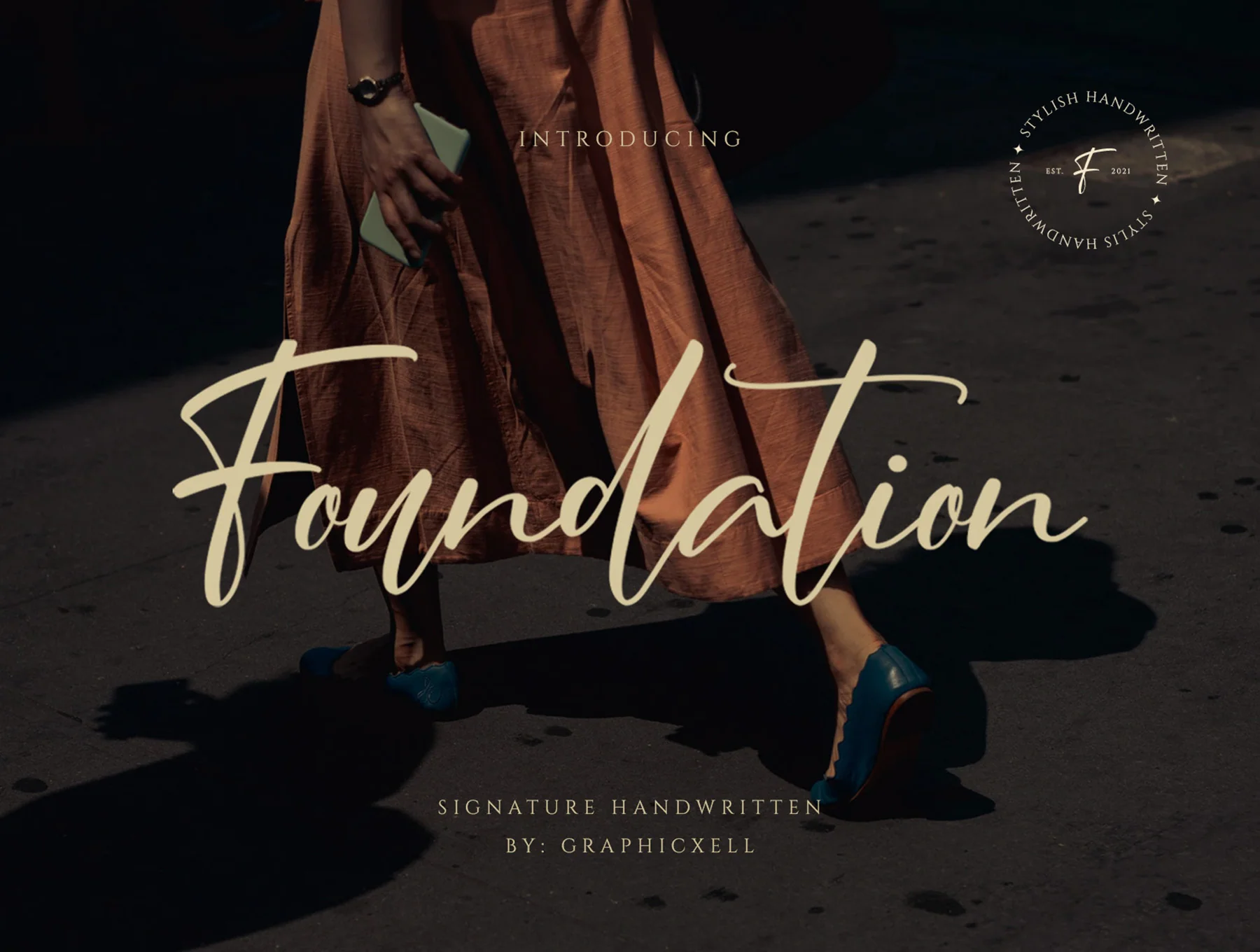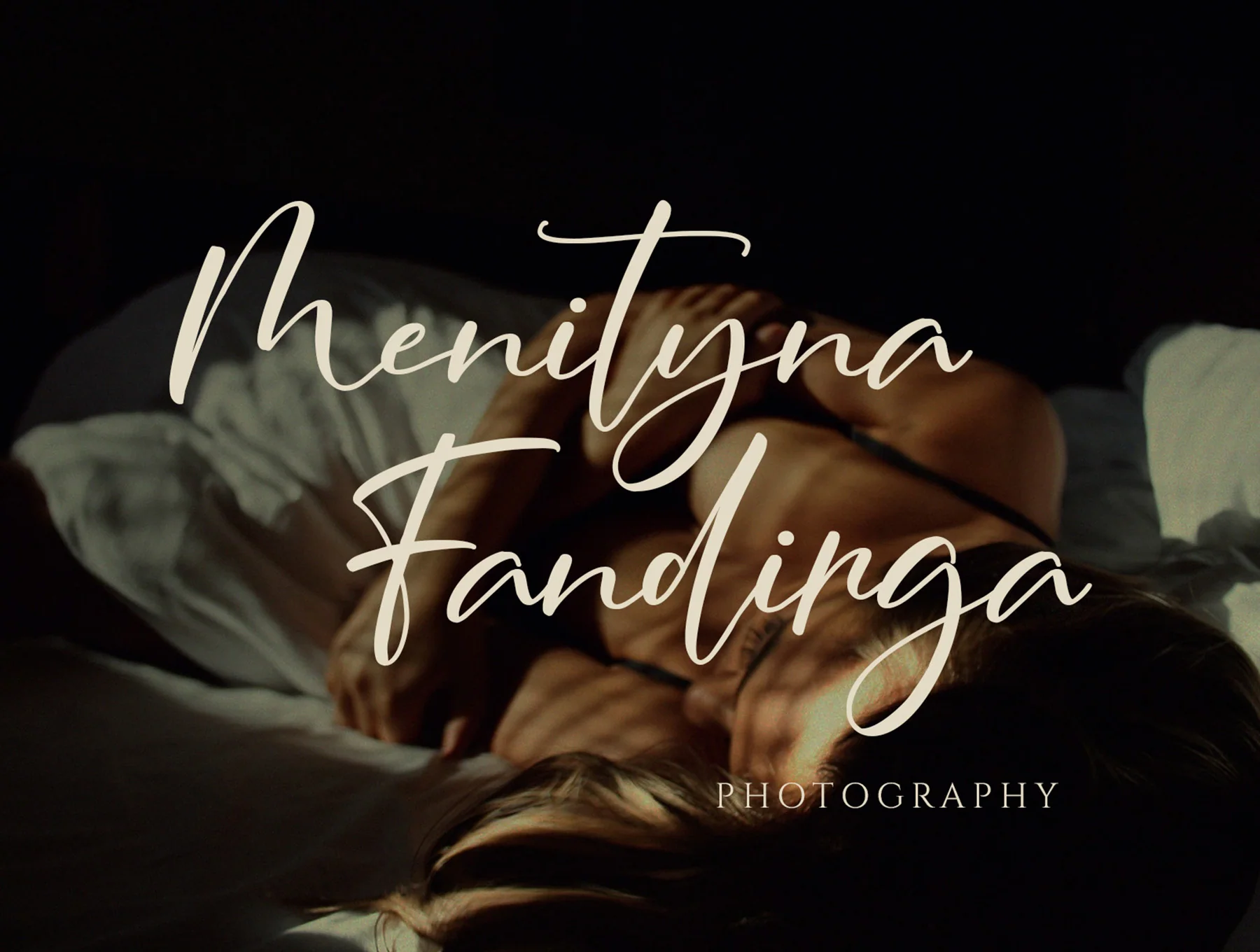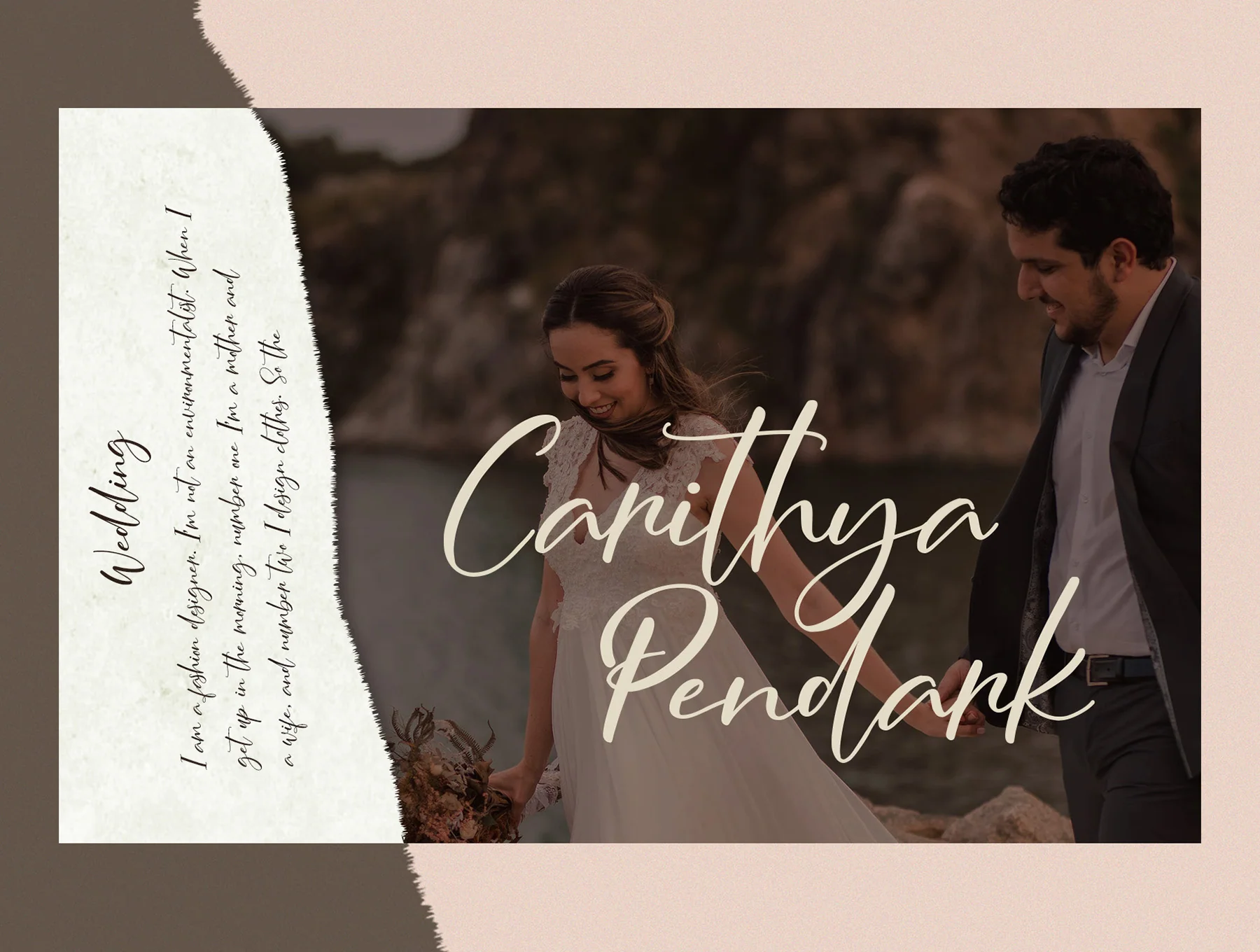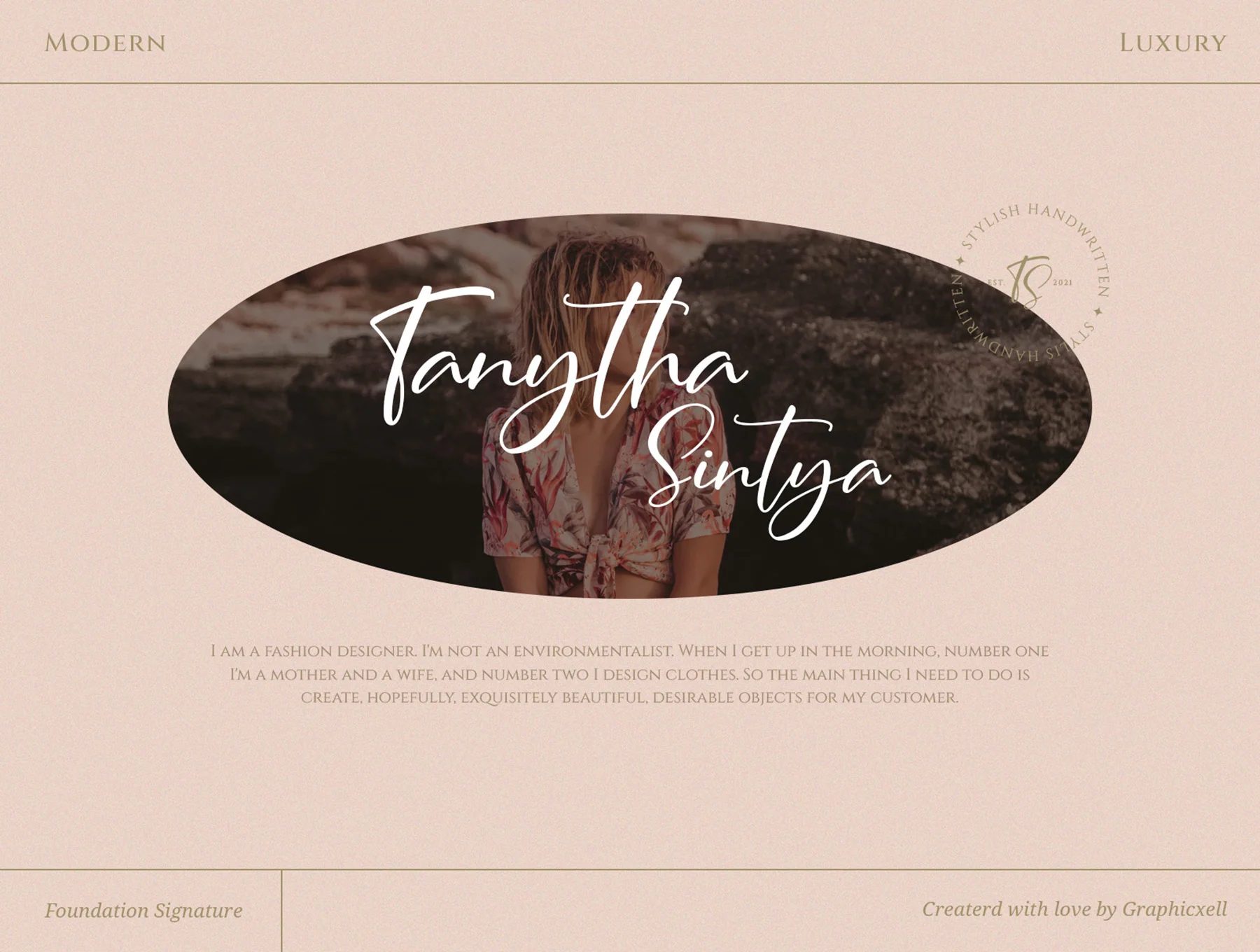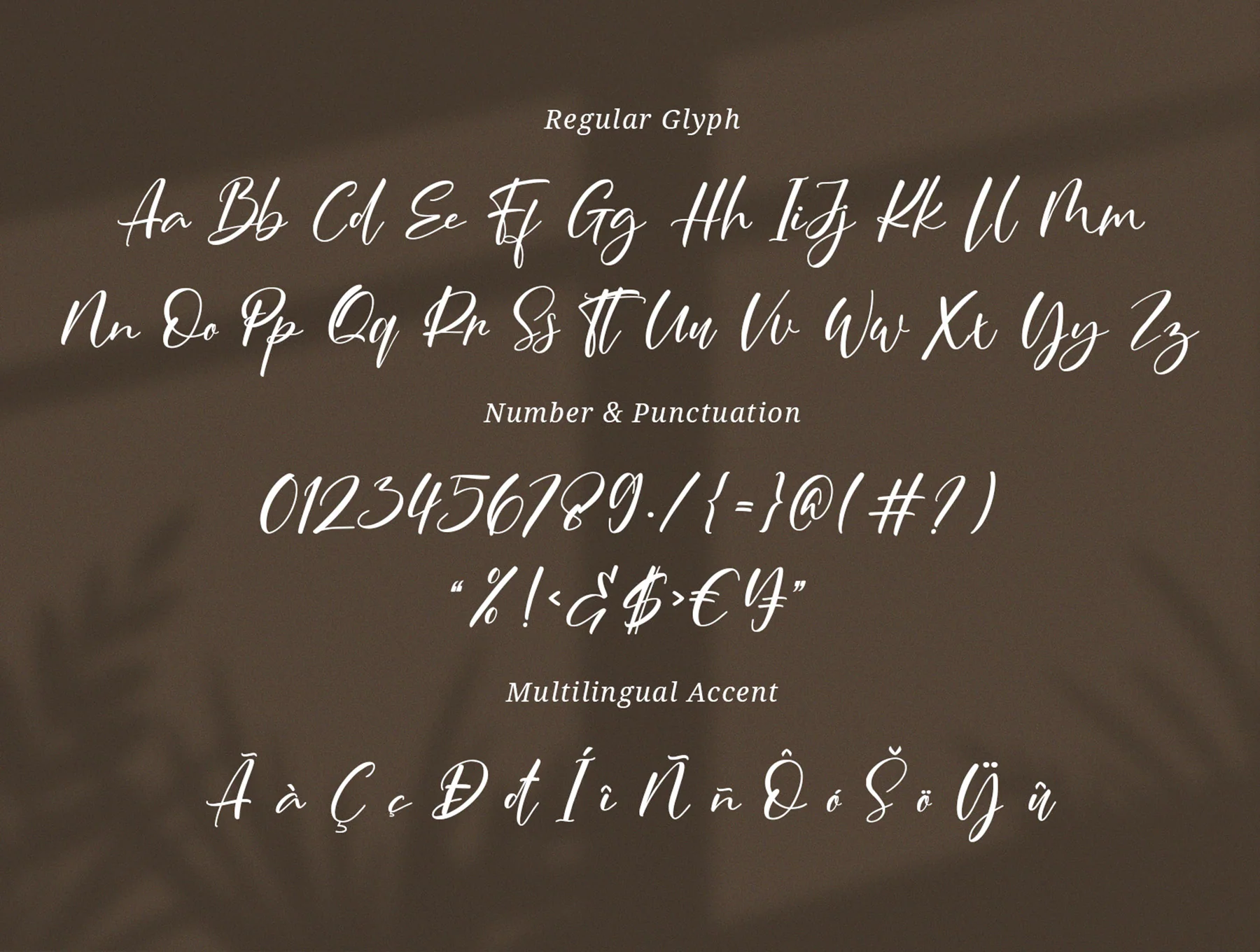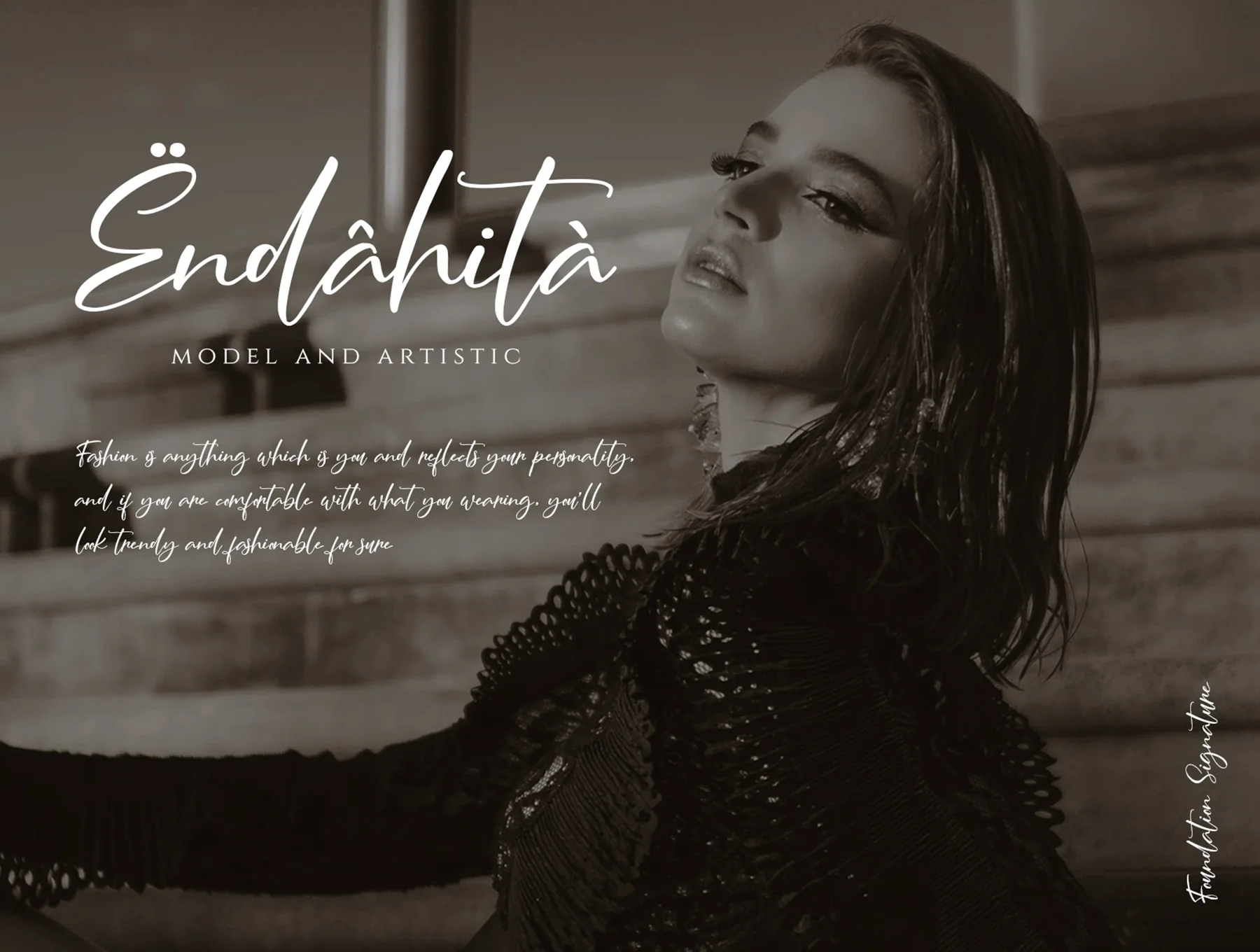
Foundation - Stylish Signature Font
Elegant Signature Typeface
Complete range of capital and small letters
Contemporary and stylish
Foundation is a casual yet refined script font with a modern, stylish feel. It includes OpenType features, ligatures, numerals, punctuation, multilingual support, web fonts, standard glyphs, and PUA encoding. Supplied in OTF/TTF, it works on PC/Mac and in Adobe Illustrator, Photoshop, and InDesign. Preview images are not included.